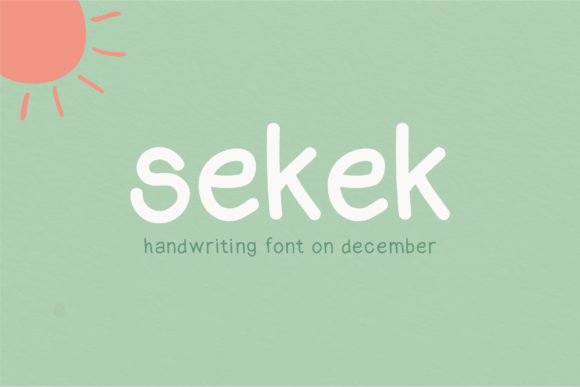
Journey into the world of Sekek, a delightful script font that exudes playfulness and authenticity, capturing the essence of childhood wonder and imagination. Designed by the talented Tammami, Sekek is not just a font; it's an invitation to embark on a creative adventure, where your designs come alive with a touch of whimsy and charm.
With its chunky letters and hand-drawn aesthetic, Sekek embodies the innocence and joy of youth. It's the perfect choice for children's activities, school projects, and any design that aims to connect with the youthful spirit. Whether you're creating posters, invitations, greeting cards, or social media graphics, Sekek adds a touch of magic that's sure to captivate and inspire.
Sekek's versatility extends beyond children-themed projects. Its charming personality lends itself beautifully to a wide range of design applications. Add a touch of playfulness to your branding, packaging, or website design. Create eye-catching headlines, logos, and product labels that stand out from the crowd. With Sekek, your designs will radiate a sense of fun and approachability, leaving a lasting impression on your audience.
Sekek is more than just a font; it's a creative companion that fuels your imagination and transforms your designs into enchanting works of art. Its unique style adds a touch of nostalgia and warmth, evoking memories of childhood adventures and the boundless creativity that lies within us all.